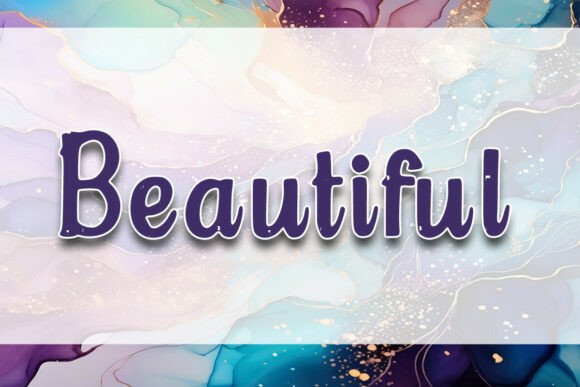
The Power of Beautiful Fonts: Elevate Your Brand’s Visual Identity
In the world of design, typography plays a crucial role in communicating a brand’s message and personality. A well-crafted font can make all the difference in setting your creative works apart from the rest. Introducing our exceptional font, meticulously designed to enhance the appeal of advertising materials, dynamic headers, vibrant blogs, distinctive logos, and robust branding applications.
Unleash Your Creativity with Our Unique Font
Our beautiful font is more than just a collection of letters and symbols – it’s a visual representation of your brand’s story. Every stroke is carefully crafted to catch the eye, and every letter is designed to leave a lasting impression. With our font, you can convey your message in a visually captivating way that resonates with your audience.
Whether you’re a designer, craftsperson, or entrepreneur, our font provides a unique blend of aesthetic appeal and functionality. It’s perfect for:
- Advertising materials: brochures, flyers, posters, and billboards
- Dynamic headers: website titles, social media graphics, and email newsletters
- Vibrant blogs: article titles, headings, and body text
- Distinctive logos: brand identities, icons, and watermarks
- Robust branding applications: business cards, letterheads, and packaging
The Benefits of Using Our Beautiful Font
So, what sets our font apart from the rest? Here are just a few benefits you can expect:
- Enhanced aesthetic appeal: Our font is designed to add a touch of elegance and sophistication to your designs.
- Increased legibility: Every letter and symbol is carefully crafted to ensure clear readability, even at small sizes.
- Improved brand recognition: Consistency is key to building a strong brand identity – our font helps you establish a cohesive visual language.
- Boosted creativity: With our font, you can experiment with different styles, colors, and textures to create unique and eye-catching designs.
How to Use Our Beautiful Font
- Experiment with different sizes and styles: Find the perfect balance between headline and body text.
- Play with color and texture: Add depth and interest to your designs with subtle color variations and textures.
- Mix and match with other fonts: Create visual hierarchy and add contrast to your designs by combining our font with other typography.
Let our font tell your story in a visually captivating way – every stroke, every letter, and every symbol is designed to leave a lasting impression. Unlock your creative potential and amplify your message to the world with our exceptional font.